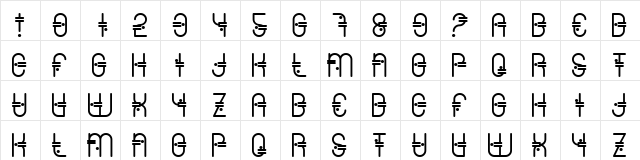
ColonialViper Regular
Design Context for ColonialViper Typeface
ColonialViper is a composed and adaptable typeface that performs quietly and consistently across a wide range of design contexts.